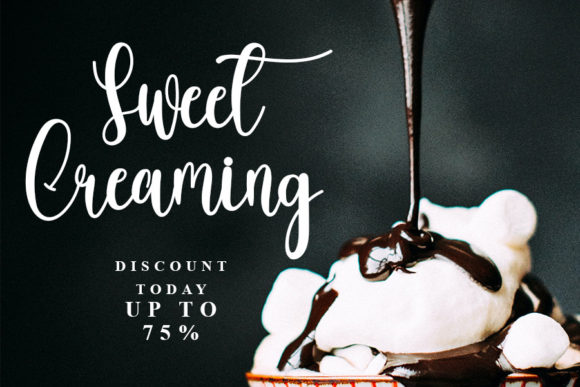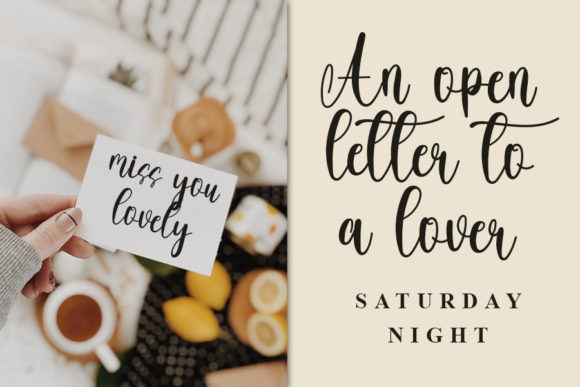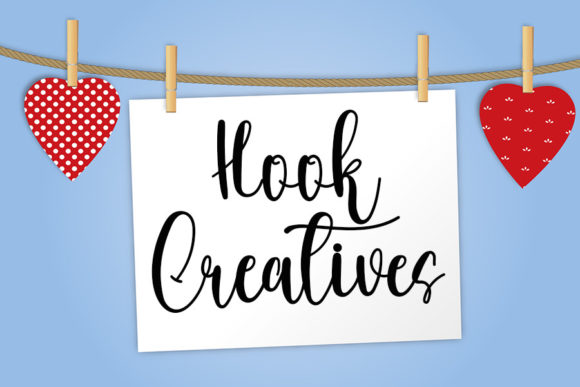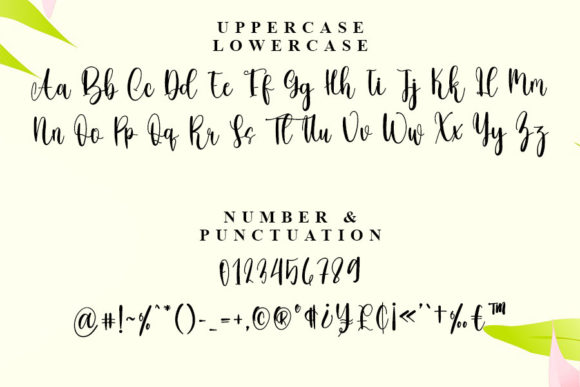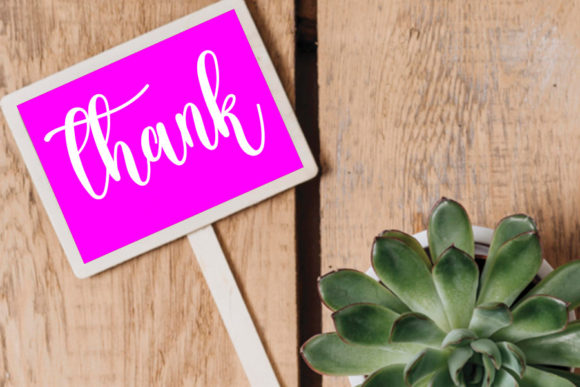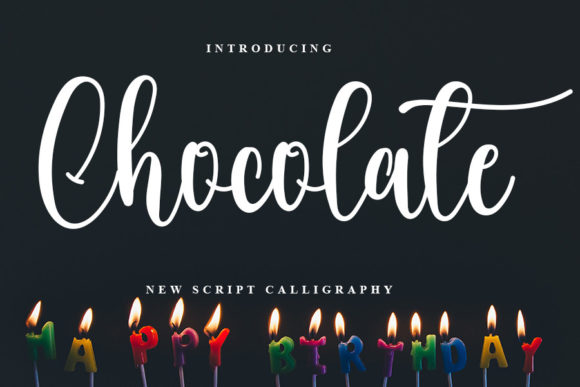
Introducing Chocolate Font: The Ultimate Handwritten Font for Creative Designs
Are you a designer or crafter looking for a unique and versatile font to elevate your creative projects? Look no further than Chocolate Font, a tall, casual, and relaxed handwritten font that’s perfect for a wide range of designs. With its natural and distinctive style, Chocolate Font is sure to inspire your imagination and take your designs to the next level.
The Characteristics of Chocolate Font
So, what makes Chocolate Font so special? Here are just a few of its key characteristics:
- Tall and elegant: Chocolate Font features tall letters that exude a sense of elegance and sophistication, making it perfect for designs that require a touch of refinement.
- Casual and relaxed: Despite its tall stature, Chocolate Font has a casual and relaxed vibe that’s perfect for creating friendly and approachable designs.
- Handwritten with love: Chocolate Font is a handwritten font, which means it has a unique and personal touch that’s hard to replicate with digital fonts.
- Natural and unique: With its natural and distinctive style, Chocolate Font is sure to stand out from the crowd and add a touch of personality to your designs.
The Versatility of Chocolate Font
One of the best things about Chocolate Font is its incredible versatility. Whether you’re designing a:
- Wedding invitation: Chocolate Font’s elegant and refined style makes it perfect for wedding invitations, save-the-dates, and other wedding-related designs.
- Branding project: With its unique and memorable style, Chocolate Font is an excellent choice for branding projects, including logos, business cards, and letterheads.
- Social media graphic: Chocolate Font’s casual and relaxed vibe makes it perfect for social media graphics, including Facebook posts, Instagram stories, and Twitter headers.
- Craft project: Whether you’re creating handmade cards, scrapbooking pages, or other craft projects, Chocolate Font is a great choice for adding a personal touch.
Why Choose Chocolate Font?
So, why should you choose Chocolate Font for your next design project? Here are just a few reasons:
- Easy to read: Despite its unique style, Chocolate Font is incredibly easy to read, making it perfect for designs that require a lot of text.
- Highly versatile: As mentioned earlier, Chocolate Font is incredibly versatile and can be used for a wide range of designs.
- Unique and memorable: With its natural and distinctive style, Chocolate Font is sure to make your designs stand out from the crowd and leave a lasting impression.
Getting Started with Chocolate Font
Ready to get started with Chocolate Font? Here are a few tips to help you make the most of this amazing font:
- Experiment with different sizes: Chocolate Font looks great in a variety of sizes, so don’t be afraid to experiment and find the perfect size for your design.
- Pair it with other fonts: Chocolate Font pairs well with a variety of other fonts, so feel free to get creative and experiment with different font combinations.
- Use it for headlines and body text: Chocolate Font is perfect for both headlines and body text, making it a great choice for designs that require a lot of text.